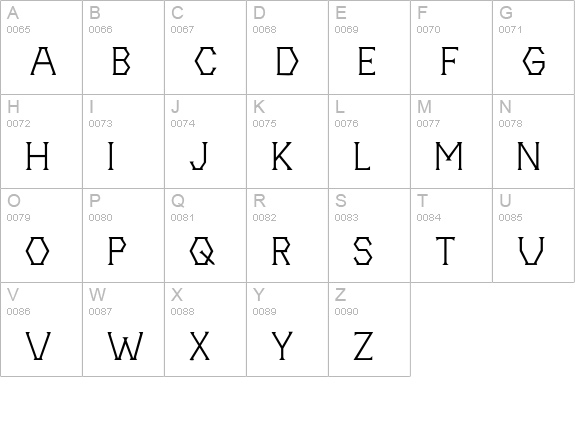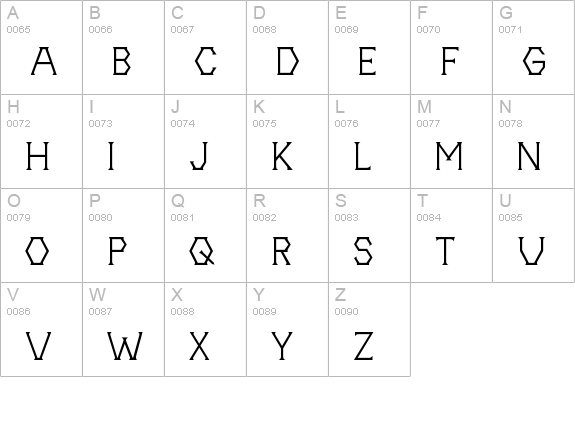
Introducing the exquisite 20th Centenary Faux font, a stunning typeface that exudes elegance and sophistication. This font beautifully captures the essence of the 20th century with its timeless design and classic appeal. The intricate details and unique flourishes of this font make it a perfect choice for projects that require a touch of vintage charm. What sets the 20th Centenary Faux font apart is its versatility and ability to effortlessly elevate any design. Whether you are working on a branding project, wedding invitations, or editorial layouts, this font will surely make a statement. Best of all, the 20th Centenary Faux font is available for free download at FontsMarket.com. Don't miss out on the opportunity to add this exquisite font to your collection and enhance your creative projects with its timeless beauty. Download now and let the 20th Centenary Faux font inspire your next masterpiece.